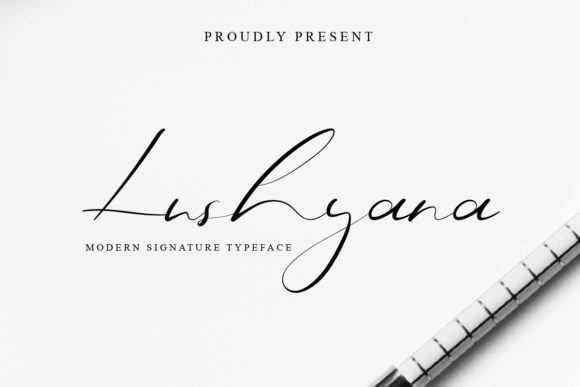
About Lushyana Font
Lushyana is an exclusive handwritten script font with a signature style. It looks beautiful on a variety of designs requiring a personalized style, such as wedding invitations, thank you cards, weddings, greeting cards, logos and so on.